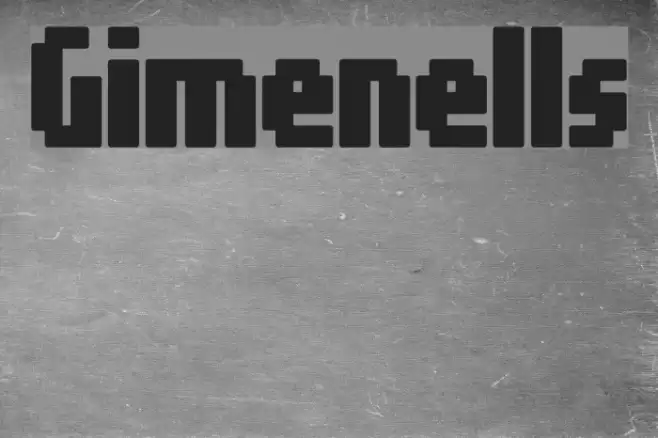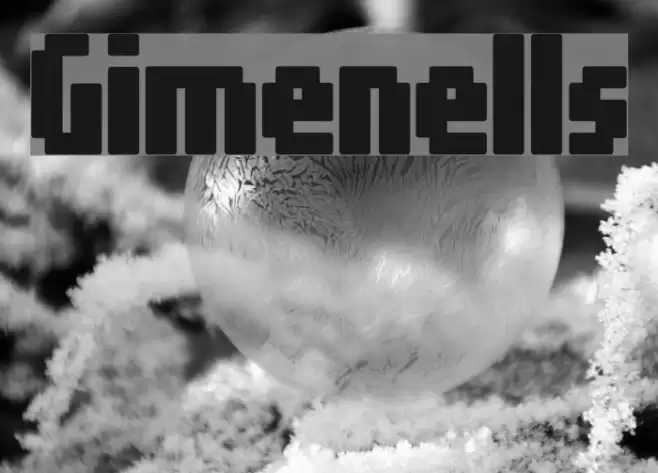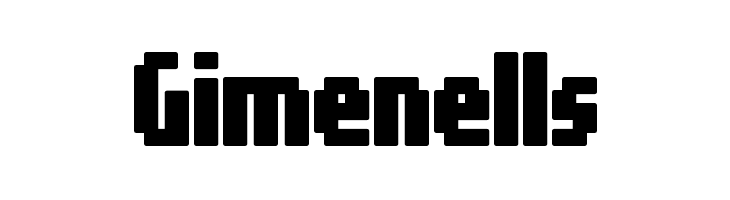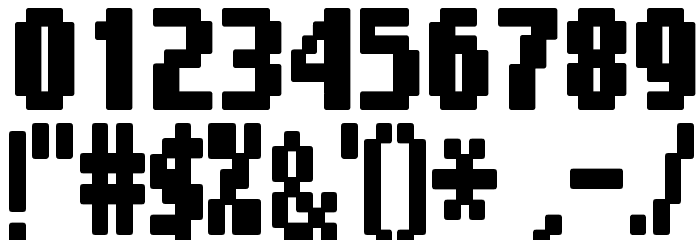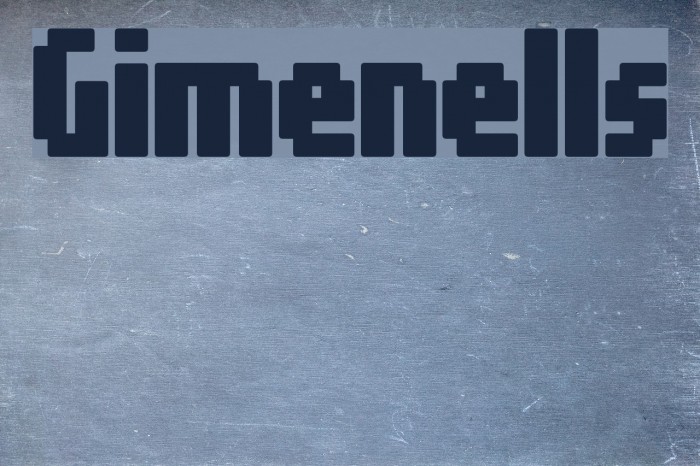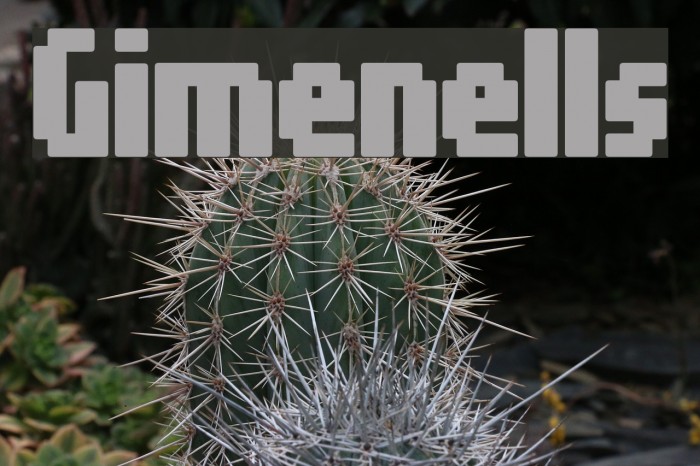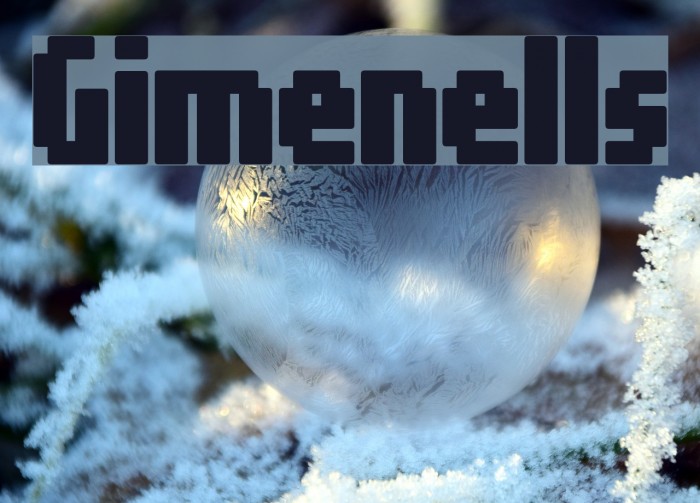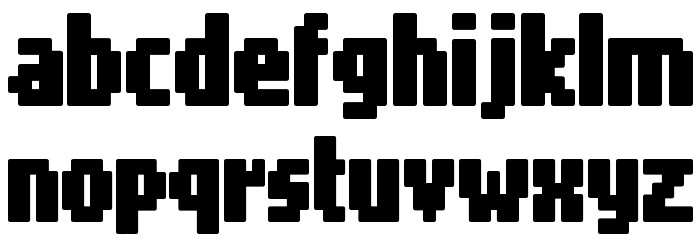
Gimenells Font
Gimenells Description
This font features a bold, blocky design with a pixelated aesthetic reminiscent of early digital displays and retro video games. Each character is constructed with uniform thickness, creating a cohesive and robust appearance. The uppercase and lowercase letters maintain a consistent style, with sharp angles and straight lines dominating the design. The numerals and special characters follow the same geometric pattern, ensuring visual harmony across all elements. This font's distinct style makes it ideal for projects that require a nostalgic or tech-inspired look.
A bold, pixelated font with a retro digital aesthetic from Pixel fonts.
- Proposed Projects: Ideal for video game graphics, retro-themed posters, digital art, and tech-related branding.
- Overall Style: Retro, Digital